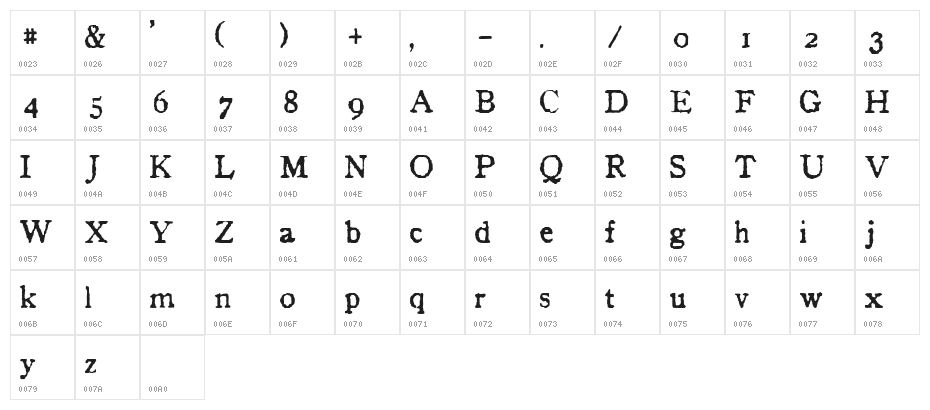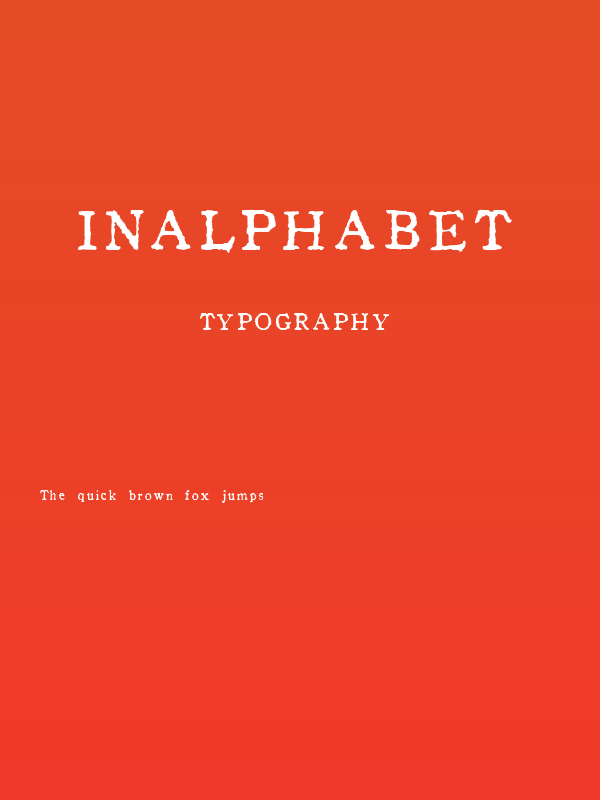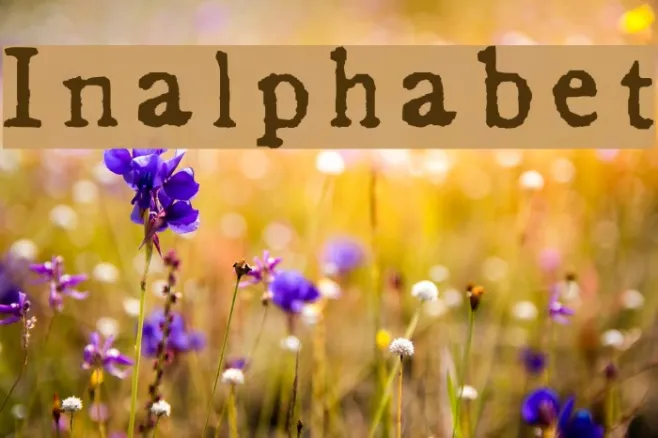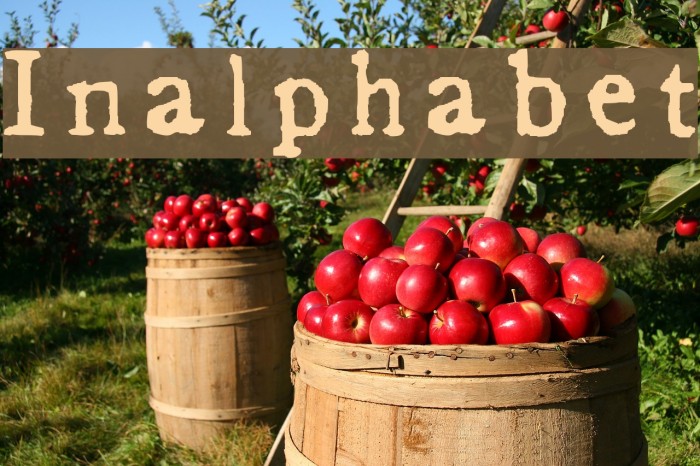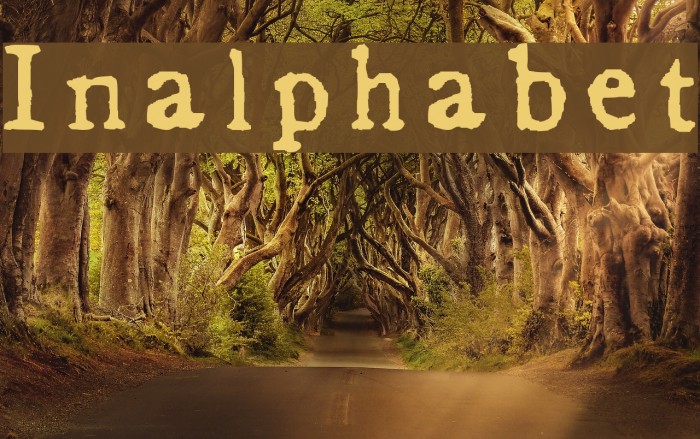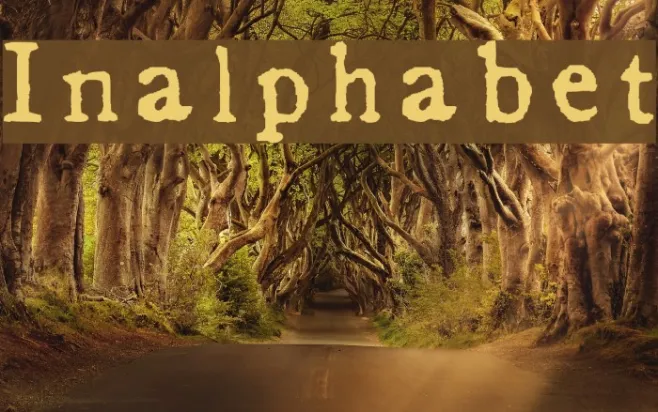
Inalphabet Font
Inalphabet Description
This font exhibits a classic, vintage style with a slightly distressed appearance, giving it a hand-printed look. The characters are bold with pronounced serifs, adding to its traditional aesthetic. The uppercase and lowercase letters maintain a consistent design, while the numerals and special characters complement the overall style. The font's texture suggests an old-world charm, ideal for projects that require a touch of nostalgia or historical context.
| Proposed Projects | Ideal for vintage-themed designs, historical documents, posters, book covers, and branding that requires a classic touch. |